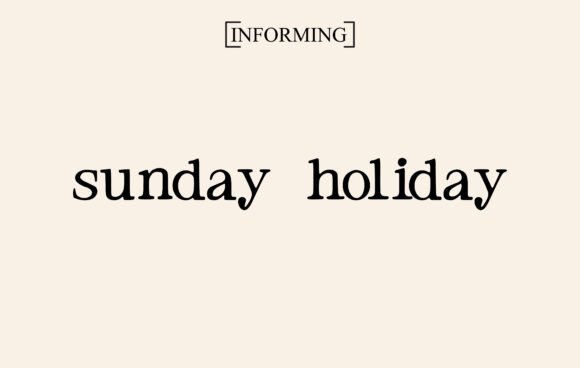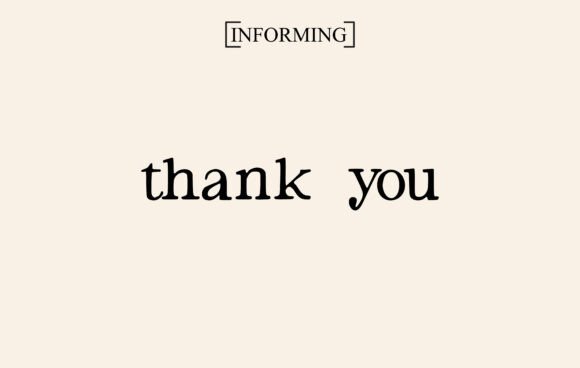
Discover the Versatility of Dian Font: Elevate Your Designs to New Heights
In the world of typography, a font can make or break a design. It’s the foundation upon which your creative ideas are built, and when chosen wisely, it can elevate your work to new heights. This is where Dian Font comes into play – a thoughtfully designed typeface that has the potential to become your go-to choice for a wide range of design projects. With its perfect blend of legibility and aesthetic appeal, Dian Font is poised to take your creative endeavors to the next level.
Legibility and Versatility: The Hallmarks of Dian Font
One of the standout features of Dian Font is its exceptional legibility. Whether you’re using it for a magazine headline, a t-shirt design, or as body text, this font ensures that your message is conveyed clearly and effectively. Its clean lines and well-crafted letterforms make it easy to read, even at smaller sizes, which is a significant advantage for designers who need to balance text with visuals.
But what truly sets Dian Font apart is its versatility. This font is not limited to a single application or industry. Instead, it’s incredibly adaptable, making it suitable for a myriad of design projects. Here are just a few examples of where Dian Font can shine:
- Magazine Headlines: Use Dian Font to create eye-catching headlines that draw readers in. Its bold and clear design ensures that your title stands out on the page.
- T-Shirts and Apparel: The font’s stylish and modern look makes it perfect for t-shirt designs, ensuring your message or logo looks great on clothing.
- Social Media Graphics: Create engaging social media posts with Dian Font. Its legibility and aesthetic appeal make it ideal for both graphics and captions.
- Branding: Establish a strong brand identity with Dian Font. Its professional look makes it suitable for logos, business cards, and official documents.
- Wedding Invitations and Cards: Add a touch of elegance to your wedding invitations, greeting cards, and other stationery with Dian Font’s sophisticated design.
Why Dian Font Should Be Your Go-To Choice
With so many fonts available to designers today, it can be challenging to find one that meets all your needs. Dian Font, however, checks all the right boxes. Here are a few reasons why it should become your go-to font:
- Unique yet Legible: Dian Font strikes the perfect balance between uniqueness and legibility. It’s distinctive enough to stand out but clear enough to ensure readability.
- Highly Versatile: As mentioned, Dian Font can be used across a wide range of projects, making it a valuable addition to your font library.
- Professional and Modern: The font exudes a professional and modern vibe, making it suitable for both personal and commercial projects.
- Easy to Pair: Dian Font pairs well with a variety of other fonts, giving you the flexibility to create dynamic and interesting typographic combinations.
Dian Font is more than just a typeface – it’s a tool that can help you bring your creative ideas to life. Its combination of legibility, versatility, and aesthetic appeal makes it an invaluable resource for designers and crafters. Whether you’re working on a magazine, a branding project, or a personal craft, Dian Font has the potential to elevate your work and make it truly memorable. So why wait? Explore the possibilities of Dian Font today and discover how it can take your designs to new heights.